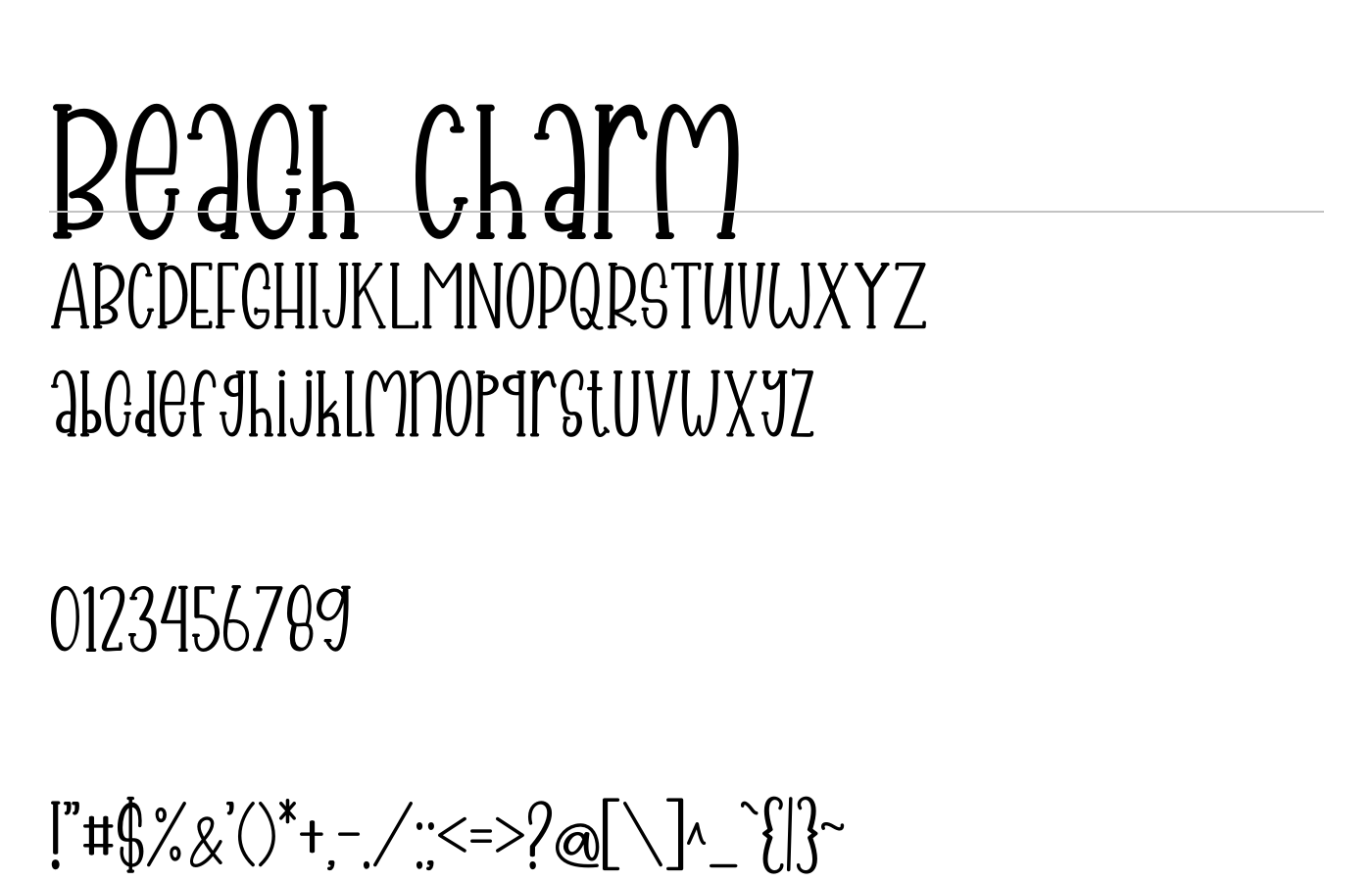
Beach Charm is a playful and quirky sans serif font with tall, narrow letterforms and whimsical curl details that give it a hand-drawn, casual vibe. Its light weight and uneven strokes create an airy, relaxed feel perfect for fun, youthful branding or beach-themed designs. This font shines in headlines, logos, and invitations where a unique, charming personality is desired.
Beach Charm Font
About Beach Charm Font
| Font family | Beach Charm Font |
| Designer | Arief Tri Sulistiyono |
| Trademark | Supersemar Letter |